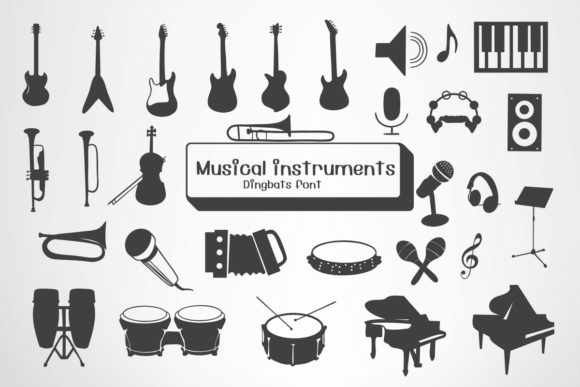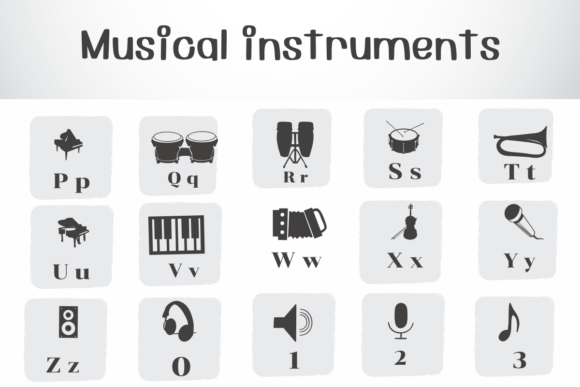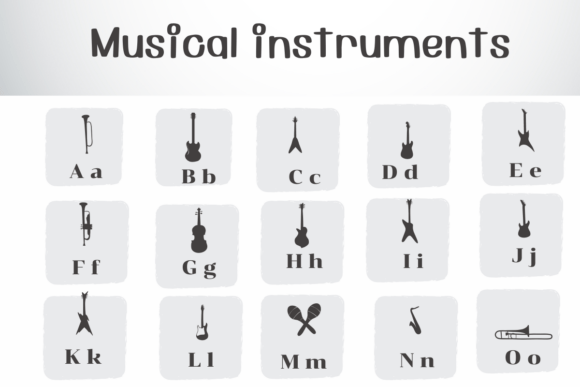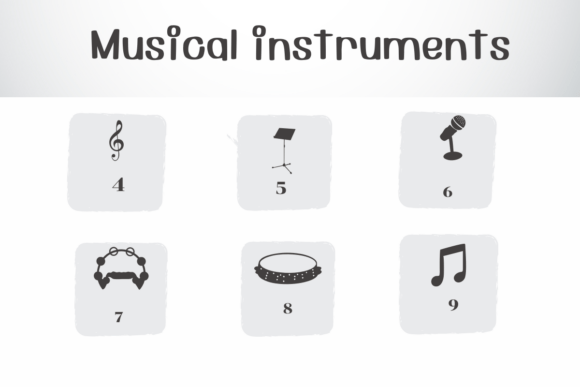
Musical Instruments Font
About the Musical Instruments Font
Elevate your designs with Musical Instruments Font, a font that combines sophistication with readability. Musical Instruments is a fun and versatile dingbat font featuring a collection of beautifully designed music-themed icons. From guitars and pianos to drums, microphones, and more, this font is perfect for music-related projects, posters, invitations, educational materials, and creative designs. Simply type a letter, and a stylish musical icon appears!
Musical Instruments Font’s playful nature makes it ideal for projects needing a lighthearted touch, such as children’s books, music festival posters, or social media graphics. It works exceptionally well in headlines, short text segments, and as decorative elements within a larger design. However, its icon-based nature makes it unsuitable for body text or situations requiring high readability over extended lengths.
This font’s inherent energy pairs well with clean sans-serif fonts like Open Sans for body copy or a more modern geometric sans-serif such as Montserrat for a contemporary feel. For a more vintage vibe, consider pairing it with a serif like Playfair Display. Avoid pairing it with overly ornate scripts which might clash with the font’s straightforward iconography.
The overall personality is upbeat and friendly, conveying a sense of fun and creativity. Brands targeting younger audiences or those with a playful brand identity will find this font particularly effective.
Musical Instruments Font Usage Examples
Musical Instruments Font Example